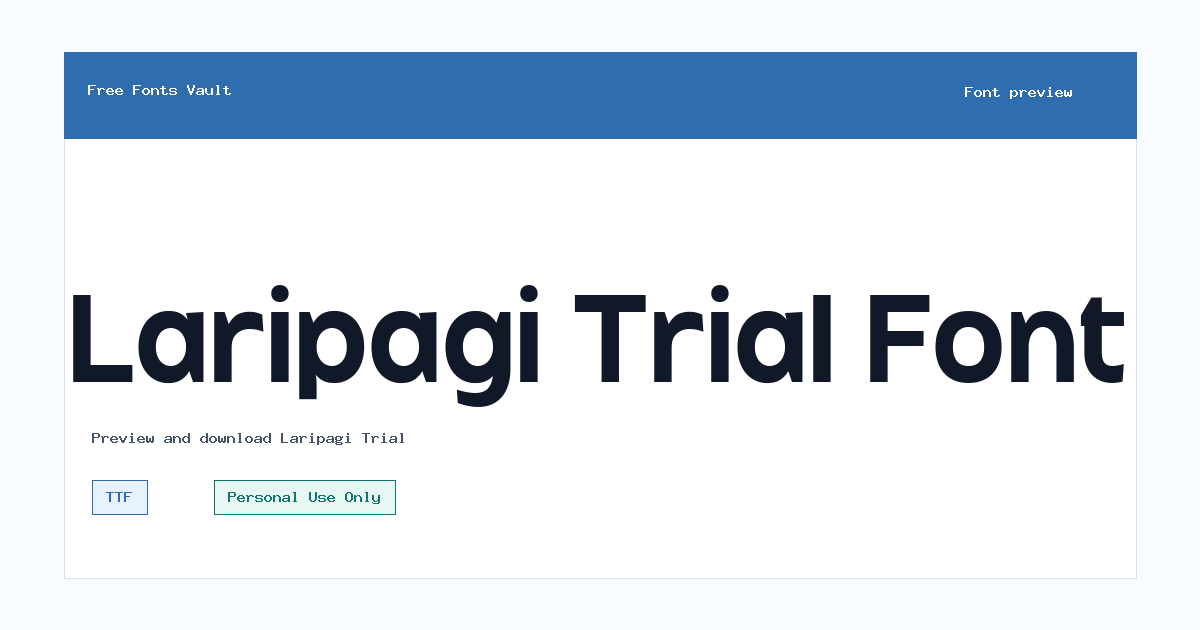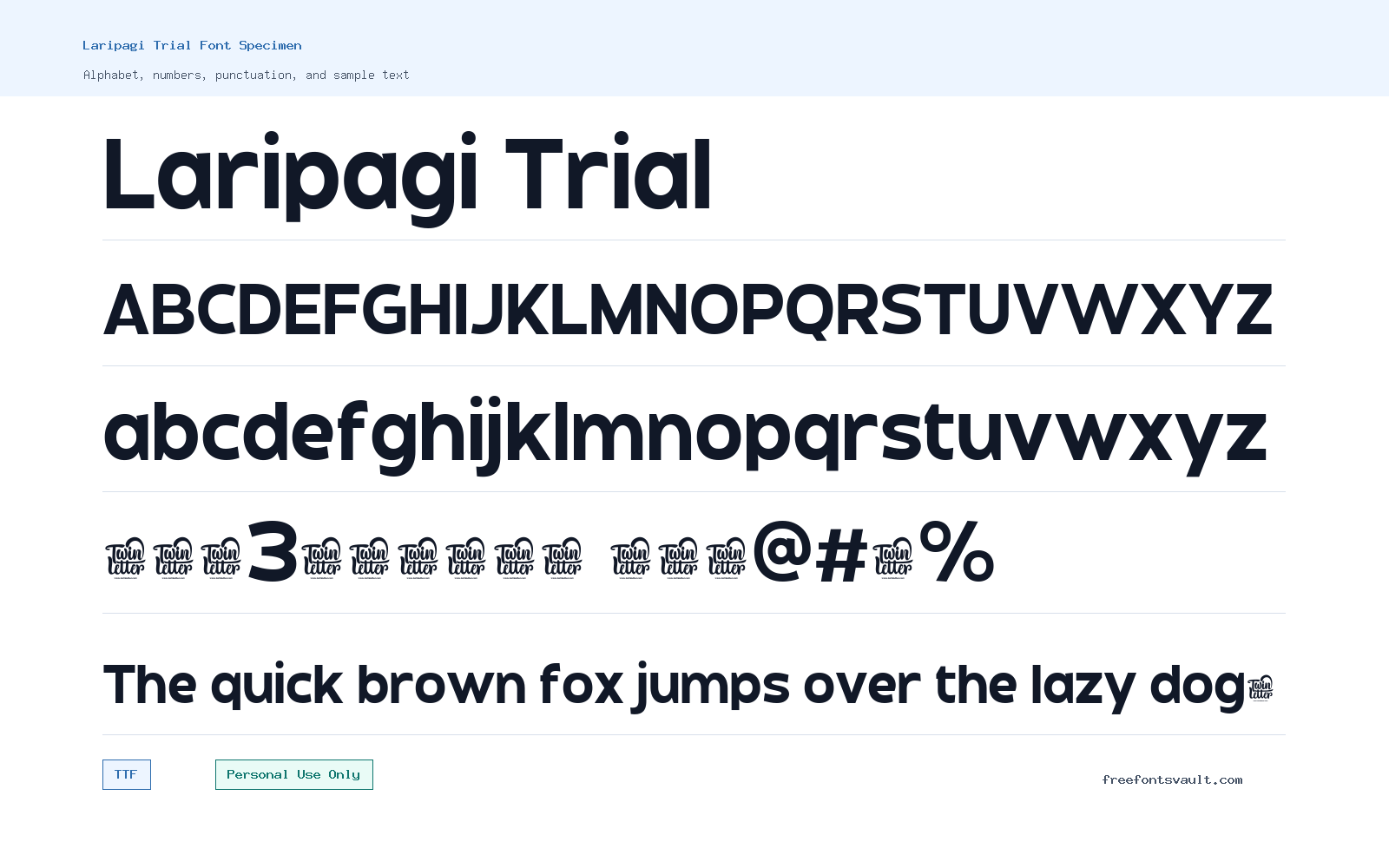
Laripagi Trial
Laripagi Trial font.
Laripagi Trial is a regular-weight sans serif font for personal projects, preview testing, and early design mockups. It comes in both TTF and OTF formats, so you can try it in most common design, editing, and layout apps before deciding whether it fits your work.
About Laripagi Trial Font
Laripagi Trial has the straightforward structure visitors usually expect from a sans serif: clean letter shapes, a normal upright style, and a regular 400 weight. That makes it easier to test across short headings, simple titles, labels, social graphics, and personal branding drafts. Because only the regular style is included, the font works best when the design does not depend on a large weight range, italics, or complex typographic hierarchy.
Use the preview box to check the words you actually plan to use. Try uppercase and lowercase text, numbers, punctuation, and a few spacing-heavy examples such as dates, prices, menu labels, or short taglines. If you are designing a logo-style mark, poster headline, invitation, thumbnail, or quote graphic, test it at the final size. For longer paragraphs, compare it with a proven reading font, because a single regular display choice may not give enough contrast or comfort for extended text.
- Regular 400 upright style for simple, clean text setting
- Sans serif design suited to short titles, labels, mockups, and personal graphics
- Single-style family, so layouts should not rely on bold, italic, or multiple weights
- Personal posters, quote cards, invitations, and social media graphics
- Short headlines, simple branding drafts, labels, and layout mockups
- Testing a clean sans serif look before choosing a licensed project font
- Designs where a regular upright style is enough without extra weights
What is Laripagi Trial best used for?
It is best for personal design tests, short headings, social graphics, invitations, labels, and mockups where a clean regular sans serif style is enough.
Can I use Laripagi Trial for body text?
You can test it for short text blocks, but check readability carefully. Since only a regular style is included, longer layouts may need a separate body font with more weights and spacing options.